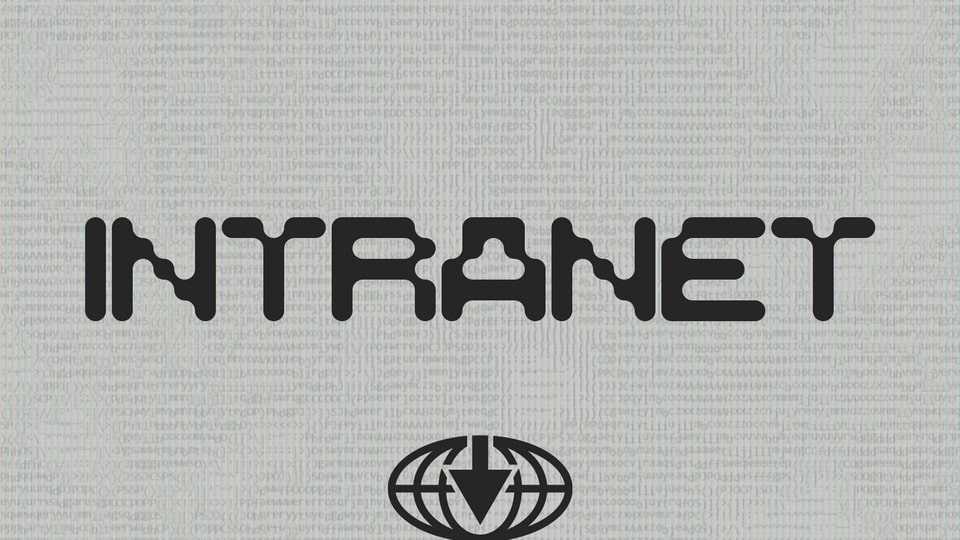
Download IntraNet font, a display typeface that conveys the essence of Y2K futurism with a touch of nostalgia for the early days of the internet in the 2000s.
Designer: João Serafim